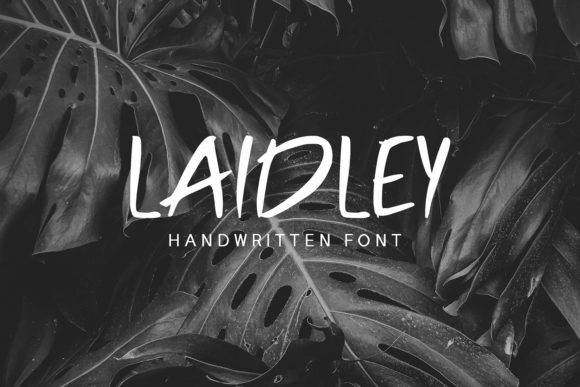
Dive into the world of captivating text with Laidley Font, a masterpiece from Creative Tacos. Let your words dance and your designs shine with this elegant script font. Laidley is a versatile chameleon, adapting effortlessly to any theme or style, making it a must-have tool for discerning designers and creative minds.
With its graceful curves and natural flow, Laidley is the perfect choice for logos, branding, and display text. It adds a touch of sophistication and charm to invitations, posters, and social media graphics. Imagine your designs adorned with Laidley's exquisite characters, captivating your audience with its timeless beauty.
Laidley's adaptability knows no bounds. Whether you're crafting a whimsical children's book, a heartfelt wedding invitation, or a sleek corporate presentation, Laidley will elevate your creation to new heights. Its clean and legible lines ensure readability, while its unique personality adds a touch of individuality to your projects.
This remarkable font is more than just a collection of letters; it's an artistic expression waiting to be unleashed. Its handwritten style evokes a sense of authenticity and warmth, drawing your audience into your message. Laidley is not just a font; it's an experience that transforms your words into art.
Don't settle for ordinary fonts that blend into the background. Embrace the power of Laidley and watch your designs come alive. This font is your gateway to a world of creative possibilities, inviting you to explore new horizons of expression. With Laidley at your fingertips, your designs will captivate, inspire, and leave a lasting impression.
Laidley Font is more than a font; it's a key to unlocking your creative potential. Unleash your imagination and embark on a journey of visual storytelling. Let Laidley be your guide as you craft designs that resonate, designs that move hearts and minds. Experience the beauty of Laidley today and transform your creative vision into a reality.